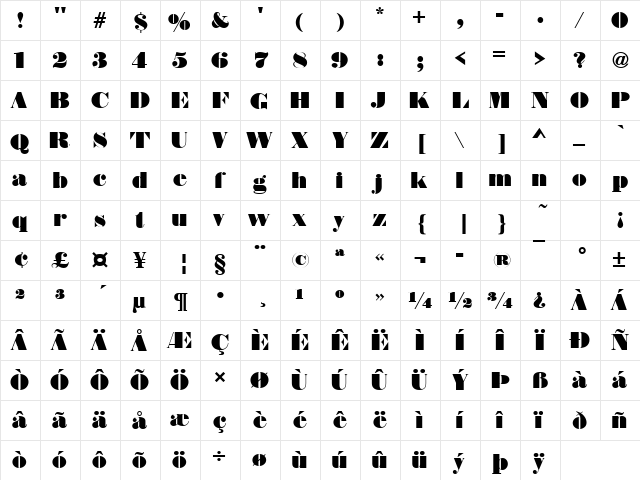
ThorowgoodDReg Regular
Design Context for ThorowgoodDReg Typeface
ThorowgoodDReg offers clean, dependable letterforms without strong stylistic allegiance, making it a practical choice for designers who need flexibility.